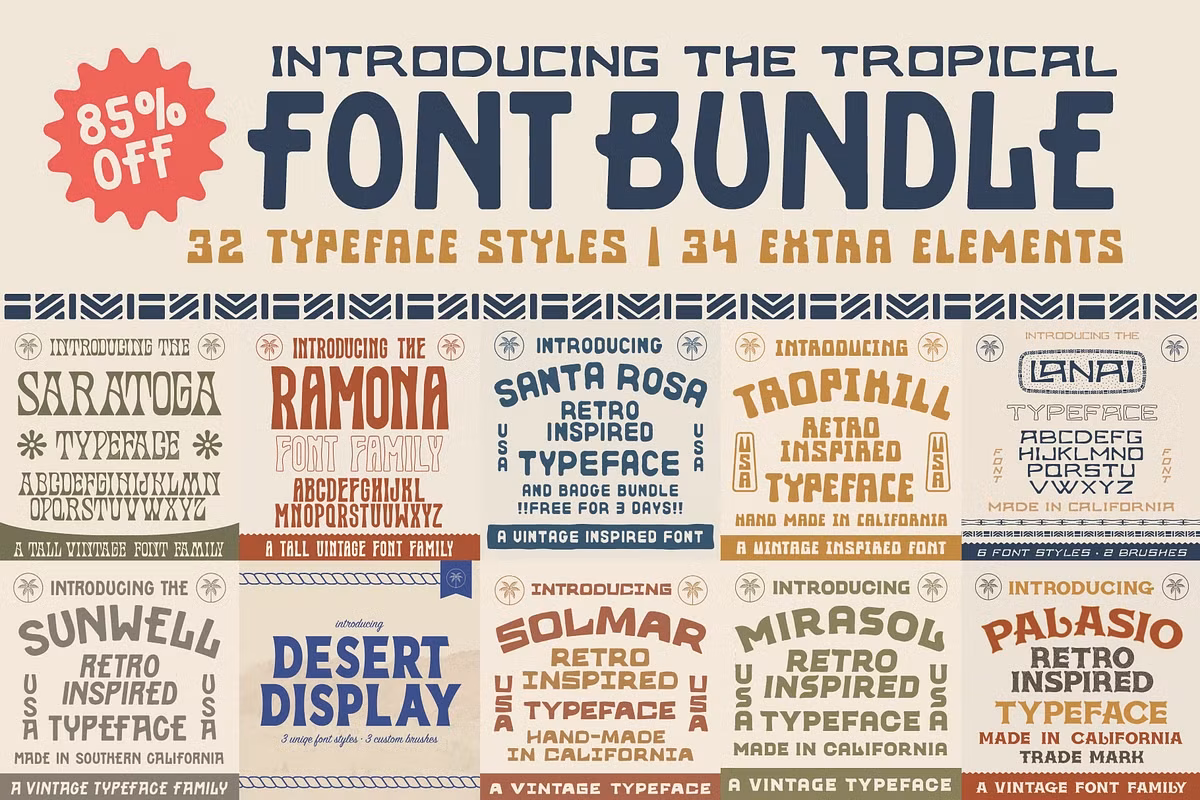
Bring the bright, bold vibes of the tropics to your designs with The Tropical Font Bundle Free Download — an exciting collection of fonts that captures the essence of sunny days, palm trees, and beachside fun. This bundle includes a variety of fonts, from playful handwritten scripts to retro, vacation-inspired styles that will instantly add personality and warmth to any project.
Perfect for beachwear brands, summer event promotions, travel brochures, Instagram graphics, and vacation-themed designs, The Tropical Font Bundle offers a unique mix of creativity and versatility. It includes multiple font styles and weights, uppercase and lowercase letters, numerals, punctuation, and multilingual support — giving you the tools to create stunning visuals.